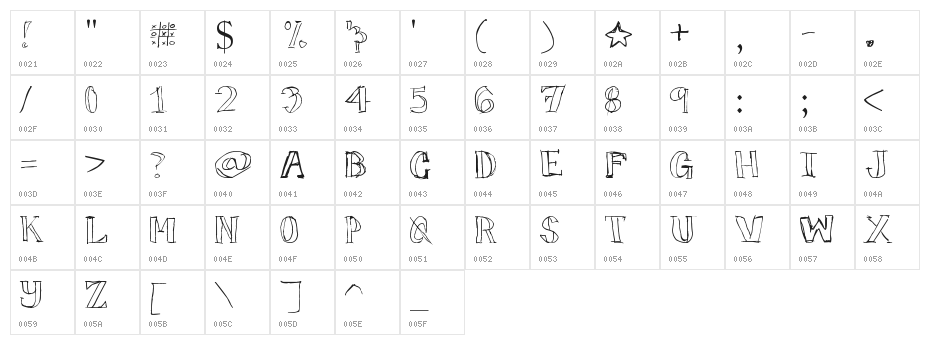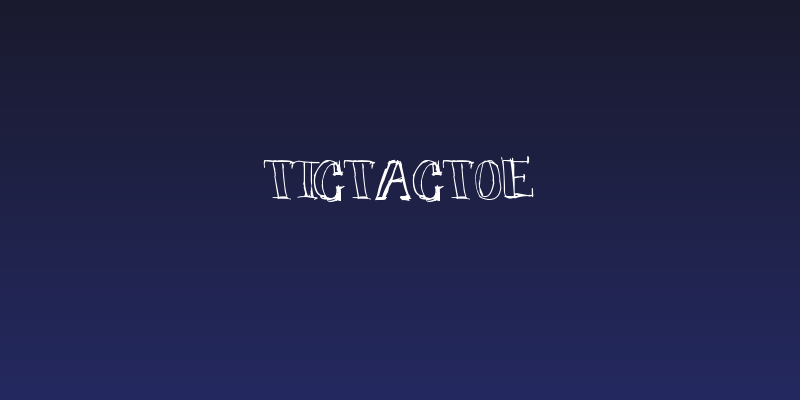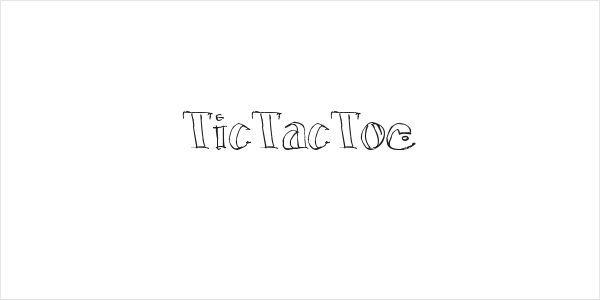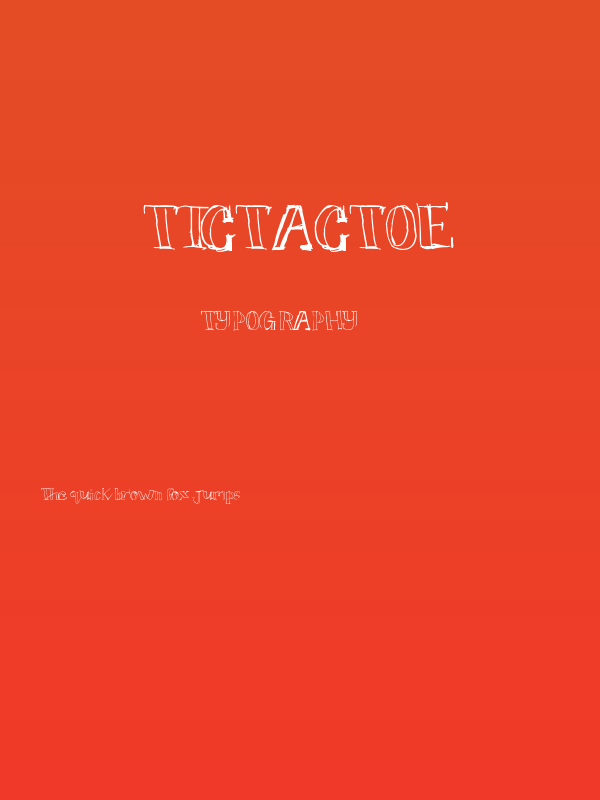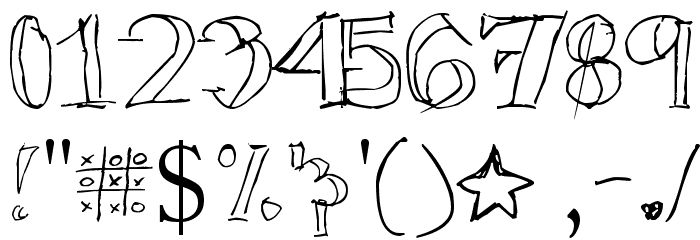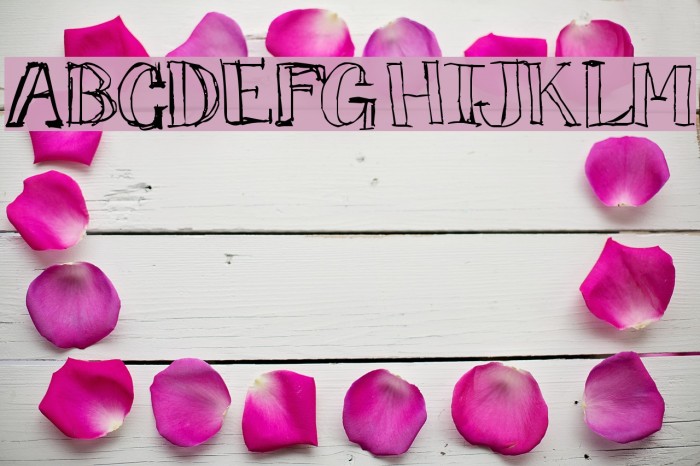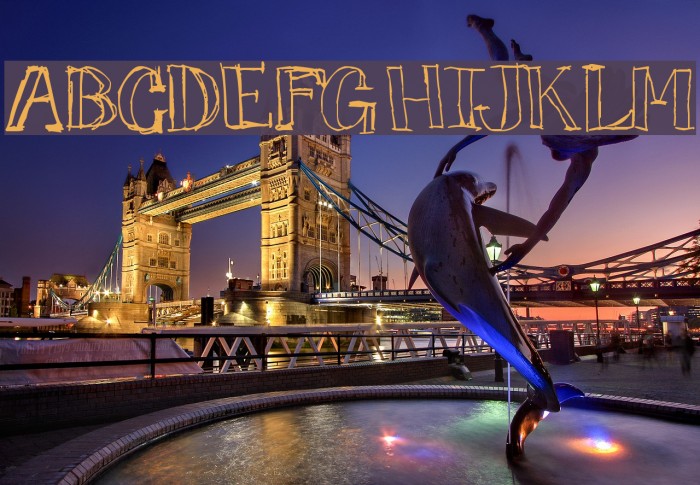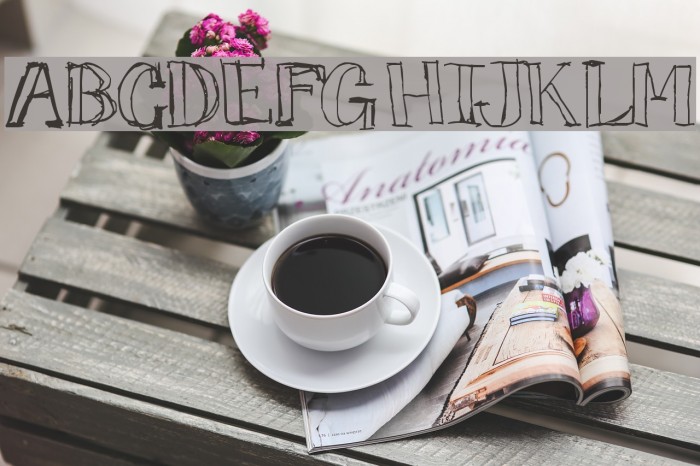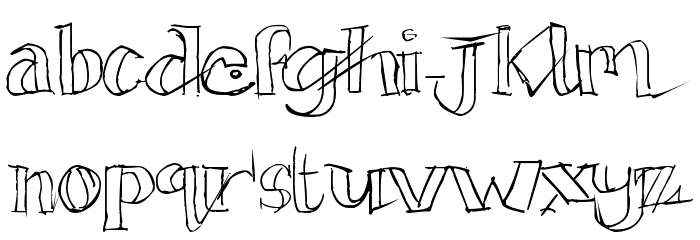
TicTacToe Font
TicTacToe Description
This font features a playful and artistic design, characterized by its sketch-like appearance. The letters are irregular and have a hand-drawn quality, giving them a whimsical and creative feel. The uppercase and lowercase letters maintain a consistent style, with strokes that vary in thickness, adding to the dynamic and lively nature of the font. Numbers and special characters follow the same artistic approach, making the font suitable for projects that require a unique and informal touch. The overall design is reminiscent of doodles or casual sketches, making it ideal for creative and fun applications.
| Use Case | Logos, Posters, Creative projects |
| Proposed Projects | Ideal for children's books, creative posters, casual invitations, and artistic branding. |